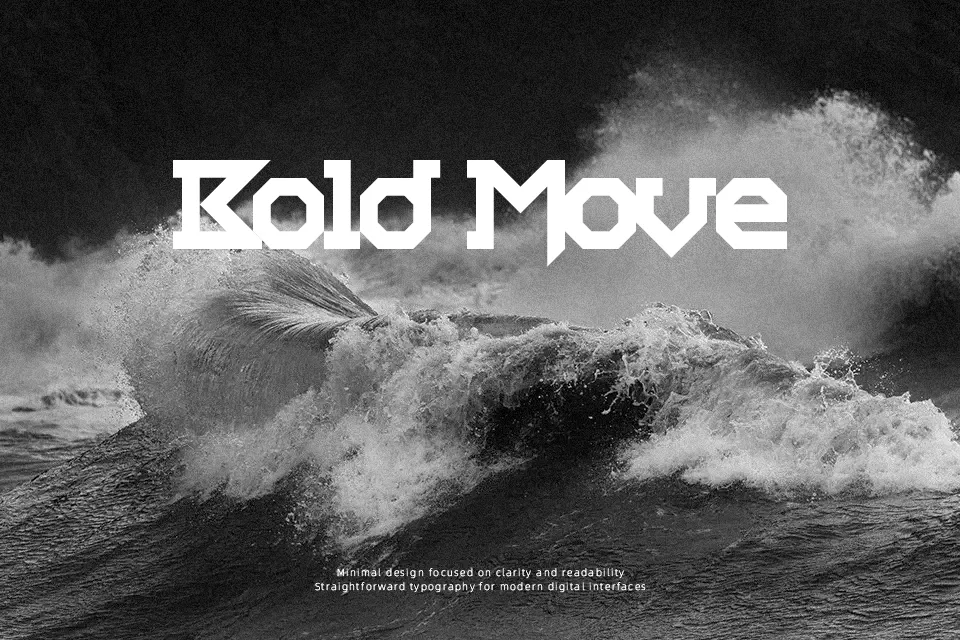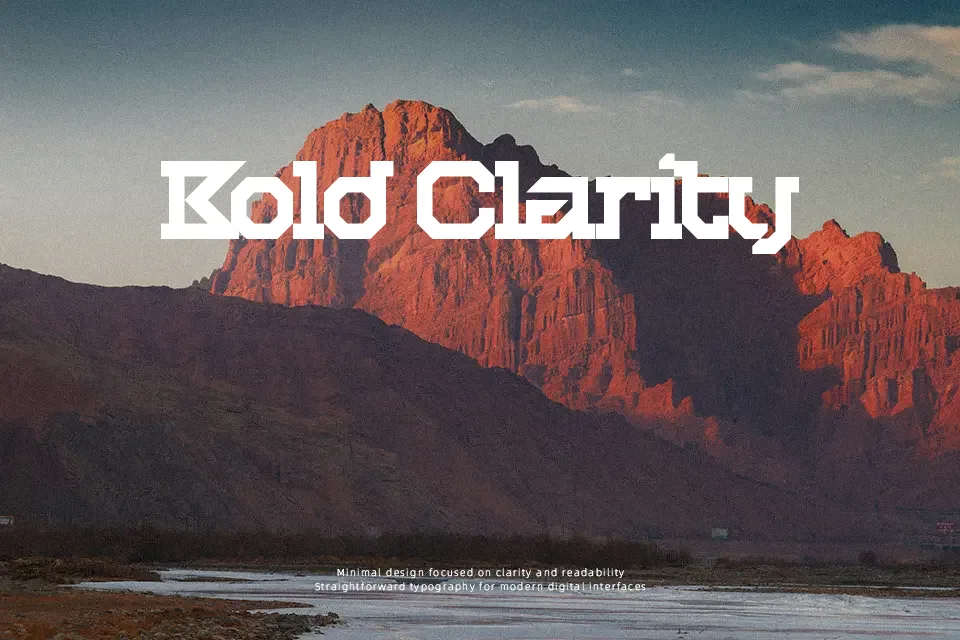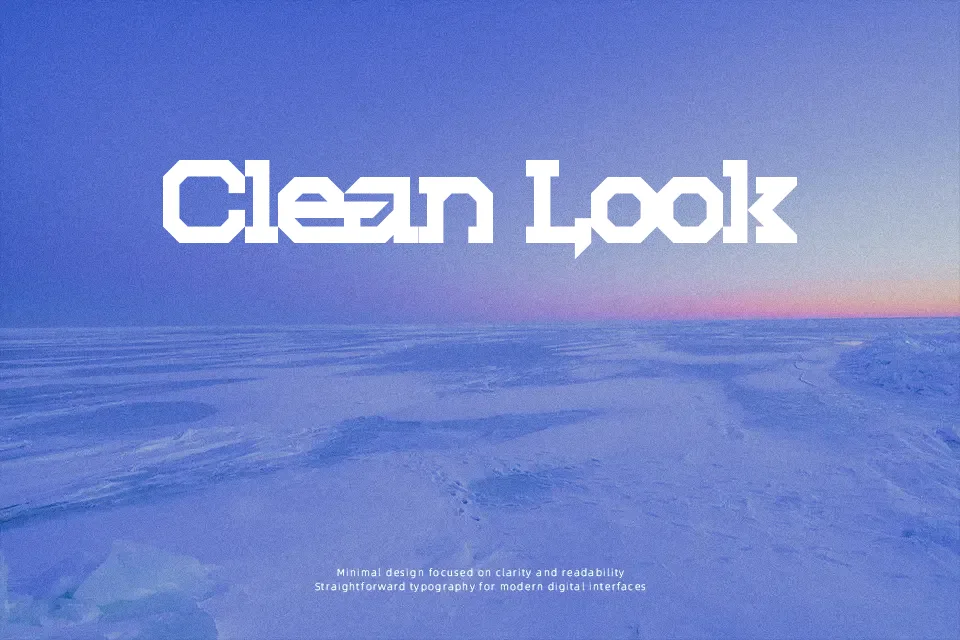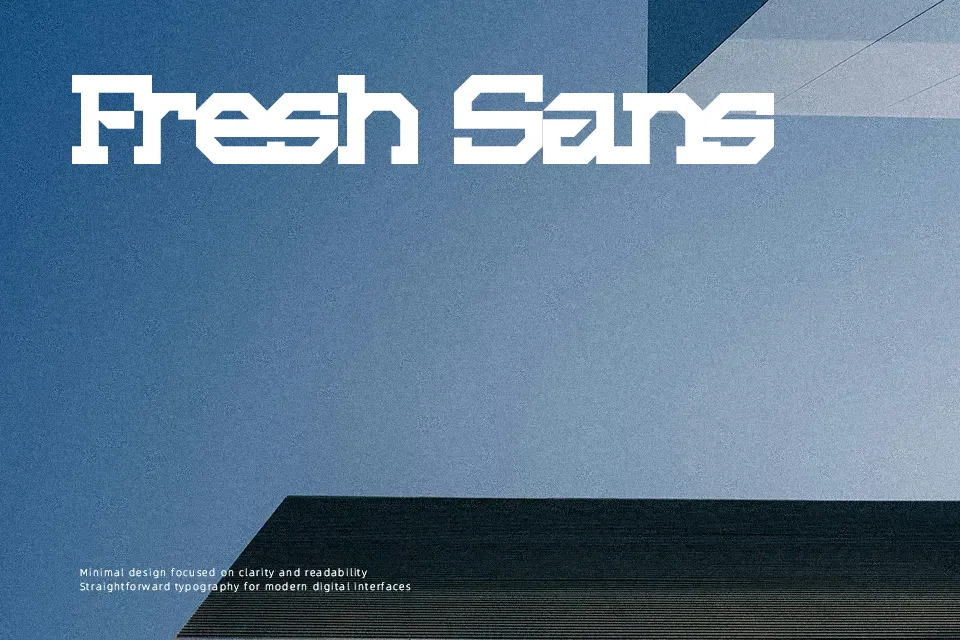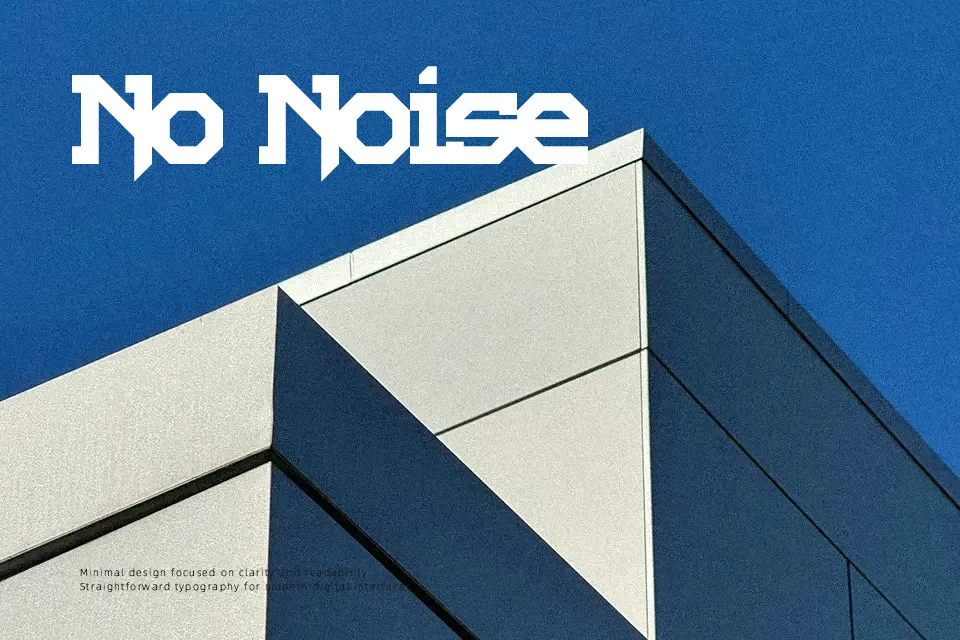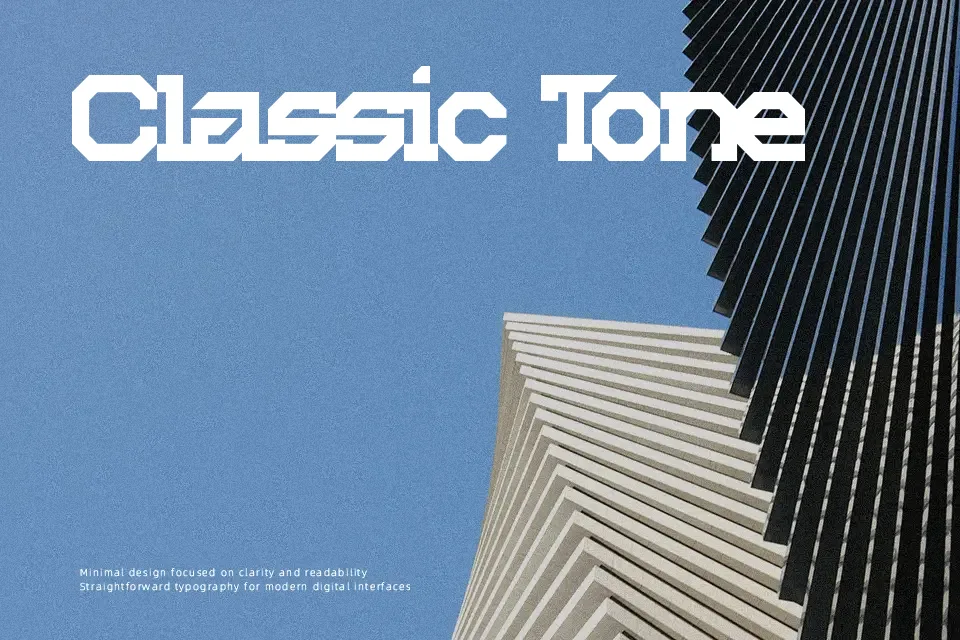
Basilisk Font
Basilisk leans on heavy, blocky strokes and octagonal curves, giving each character a hard‑edged, mechanical presence with very little softness in its forms. The spacing is tight and the structure tall, so words lock together into a compact, high‑impact line that reads well in large sizes. Visually it sits between retro arcade lettering and modern tech branding, which suits game covers, sci‑fi posters, YouTube thumbnails, or bold apparel graphics. However, the aggressive shapes quickly become tiring in long sentences, and small text can look cramped and jagged. It works best when you treat it as a statement piece for a few words, not as a general text solution.
gaming logo wordmarks
sci-fi or cyberpunk poster titles
YouTube or streaming thumbnail headlines
small UI labels or body copy
minimalist editorial layouts
Perfect for advertising, branding, and headline, with a bold and decorative style.